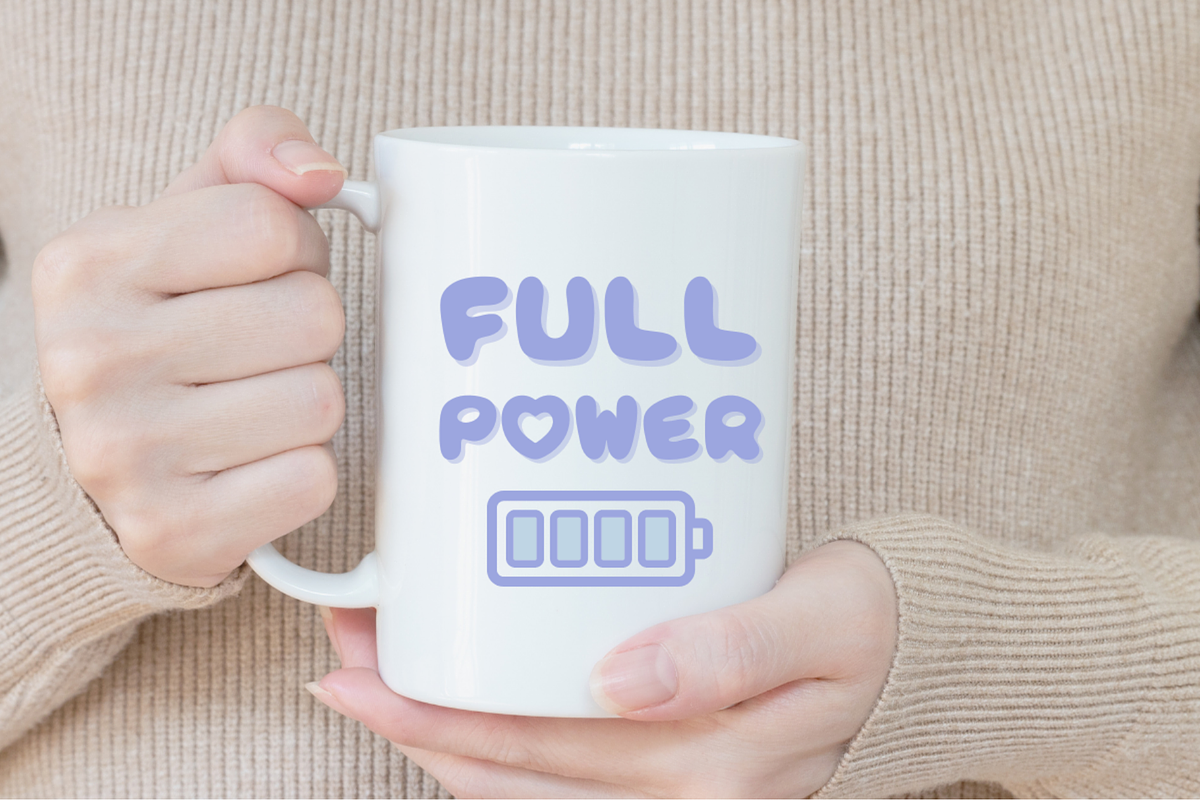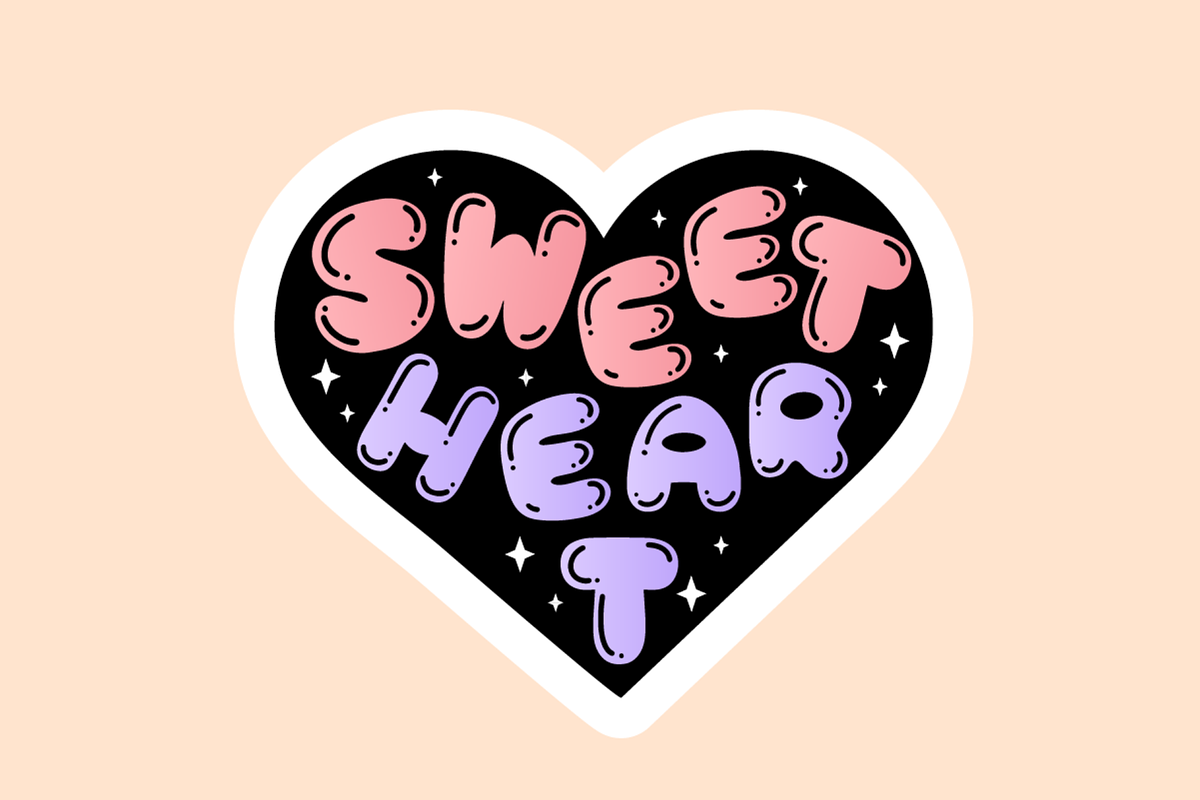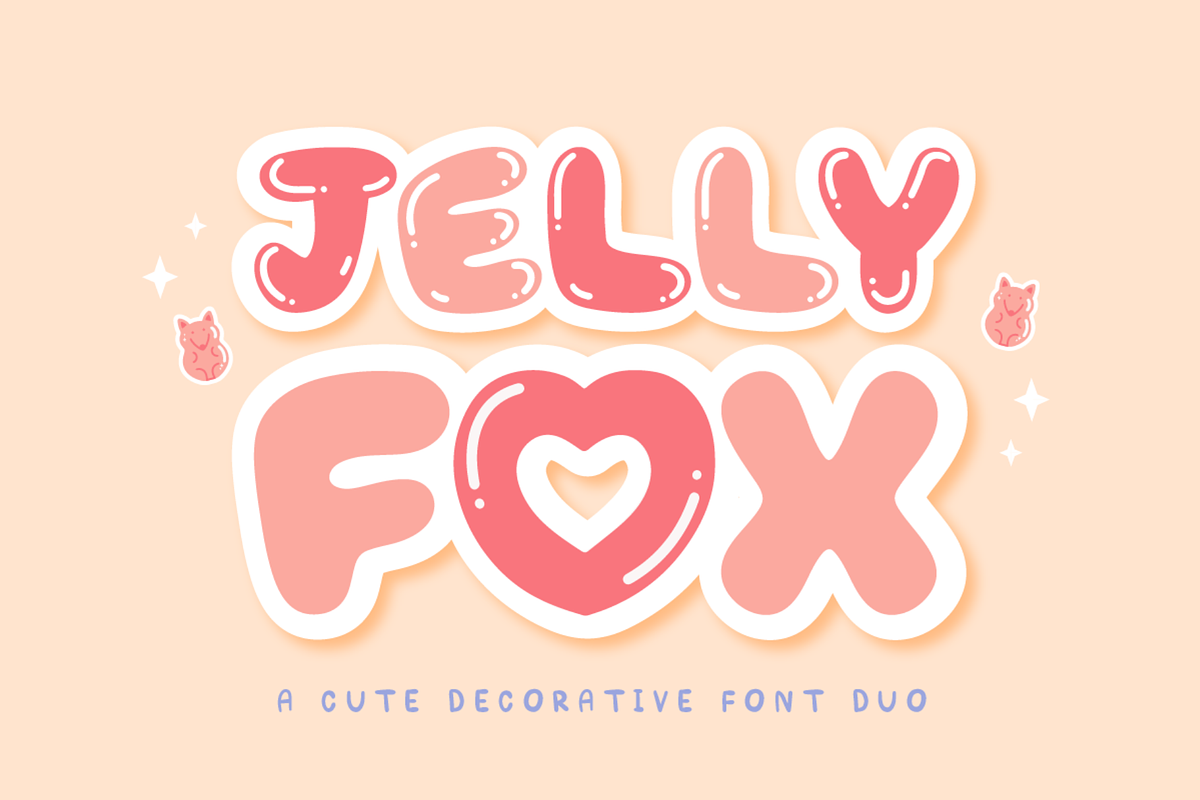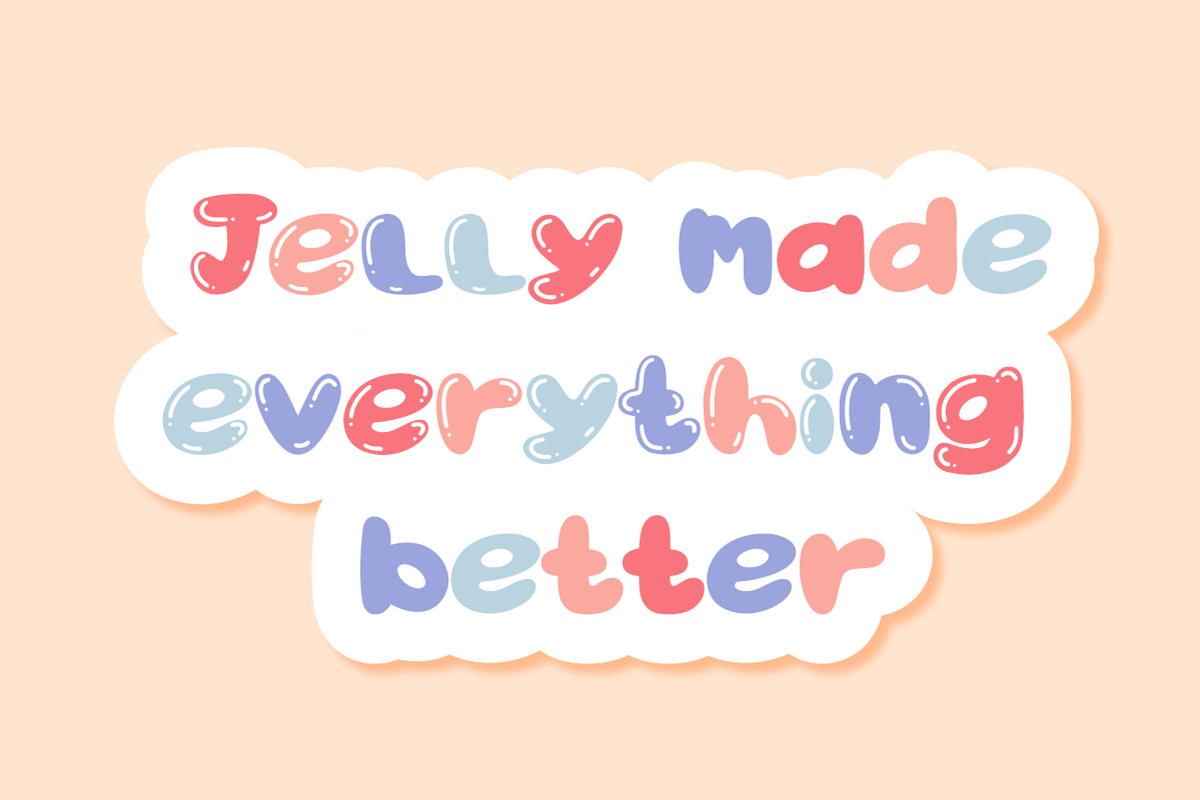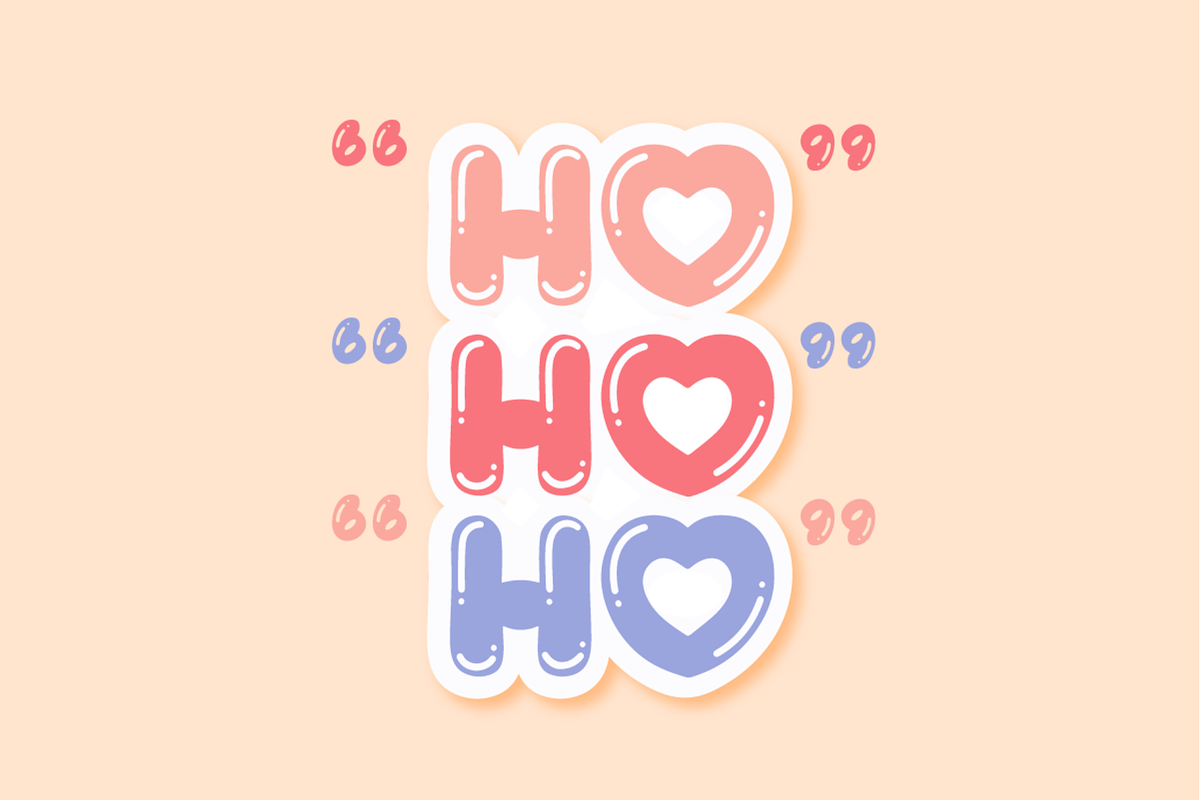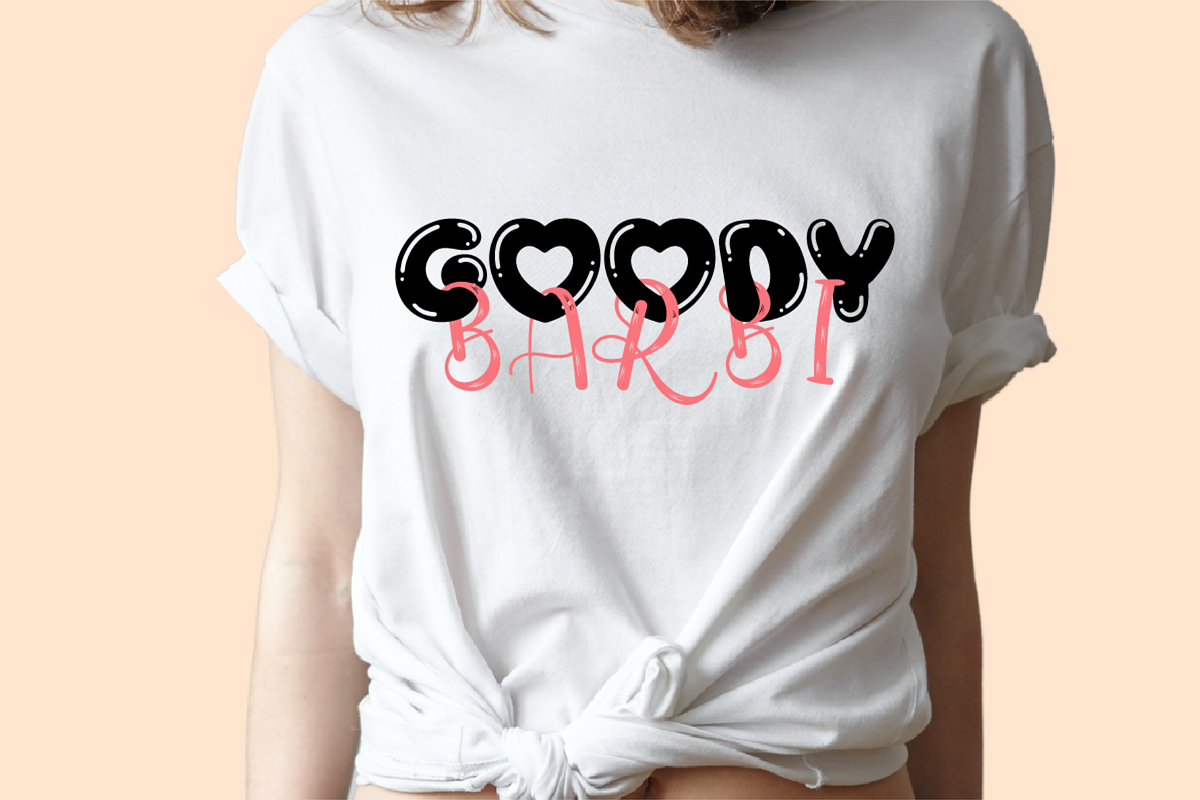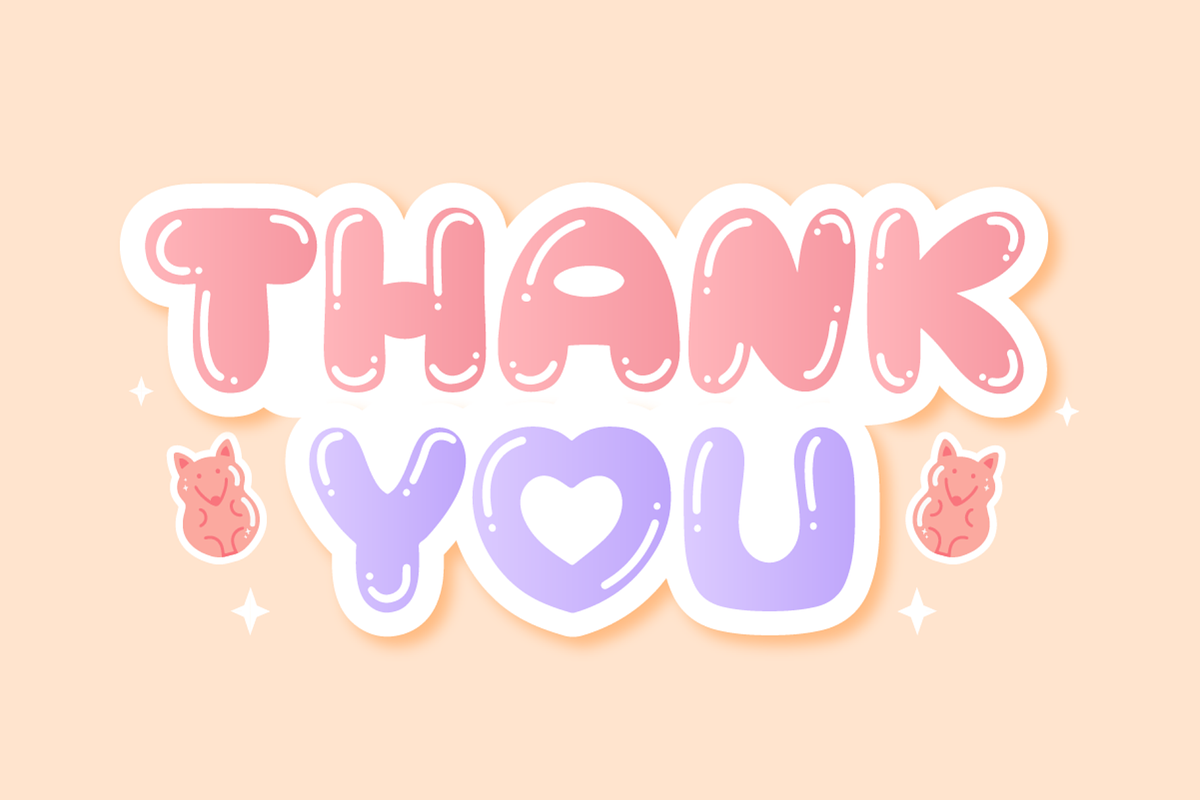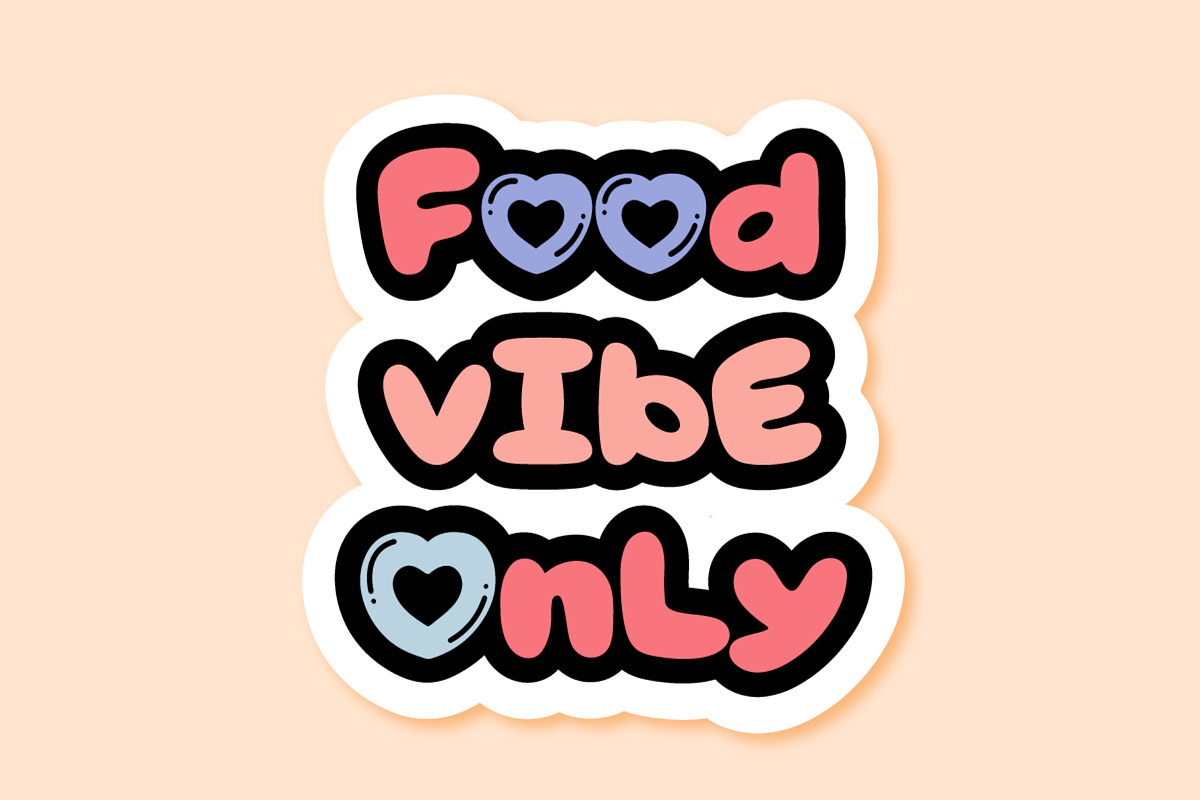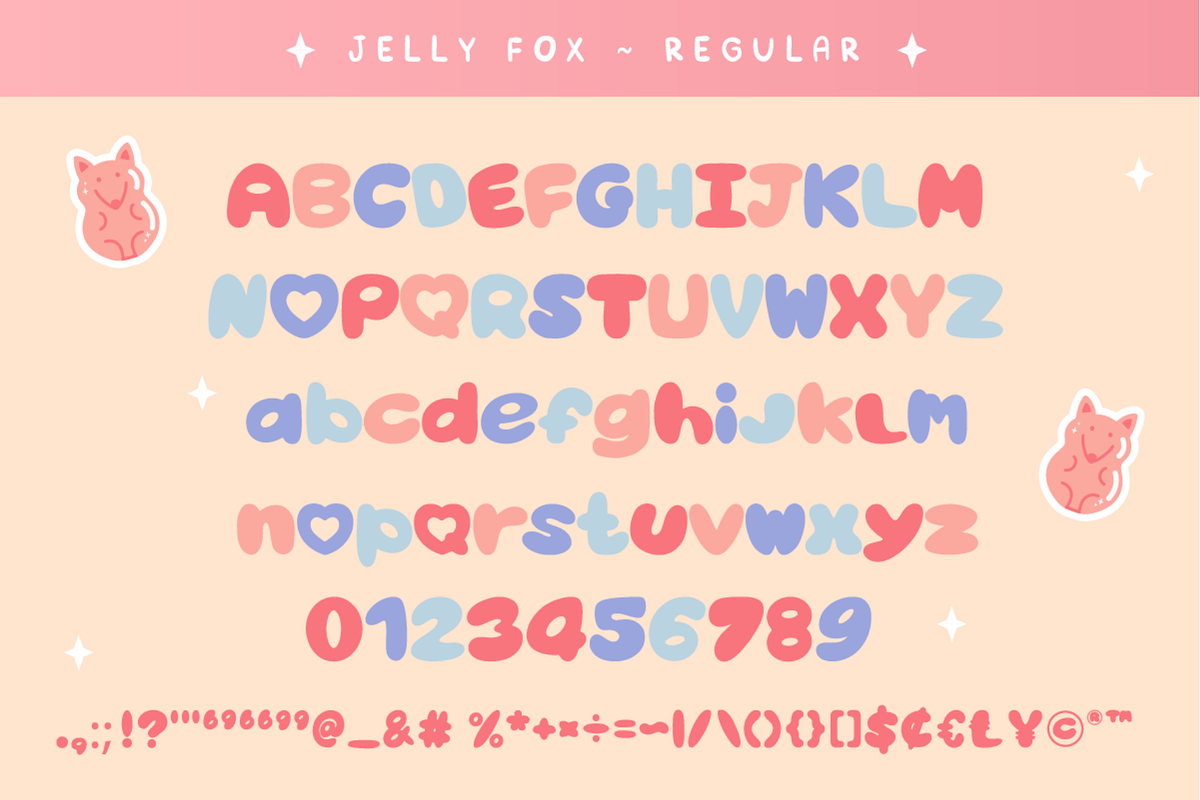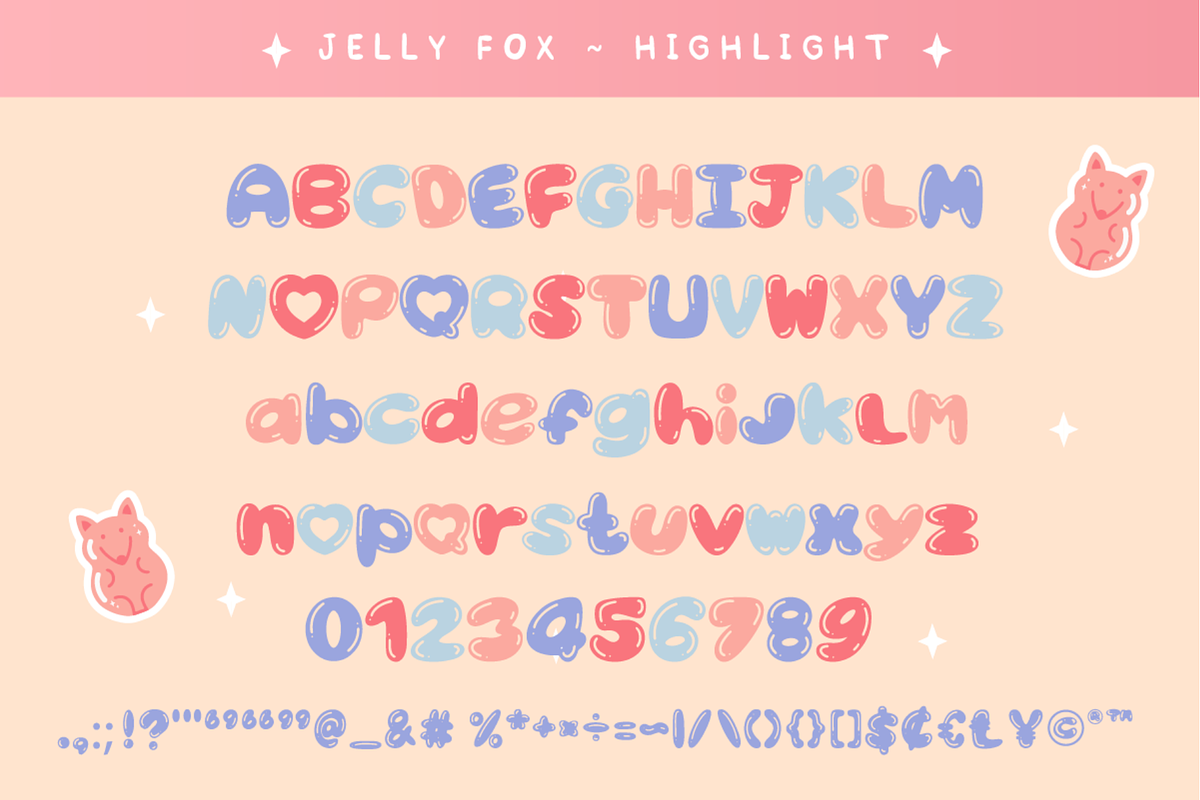
Jelly Fox A Cute Decorative Font Duo
The Jelly Fox Duo Decorative Font features two variations: Jelly Fox Regular and Jelly Fox Highlight. The second style of Jelly Fox Duo takes a more playful approach, with slightly rounded letters that give them a friendly and approachable appearance. This style adds a dash of whimsy to your designs.